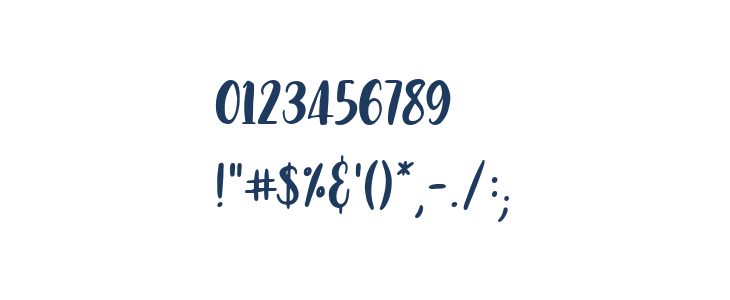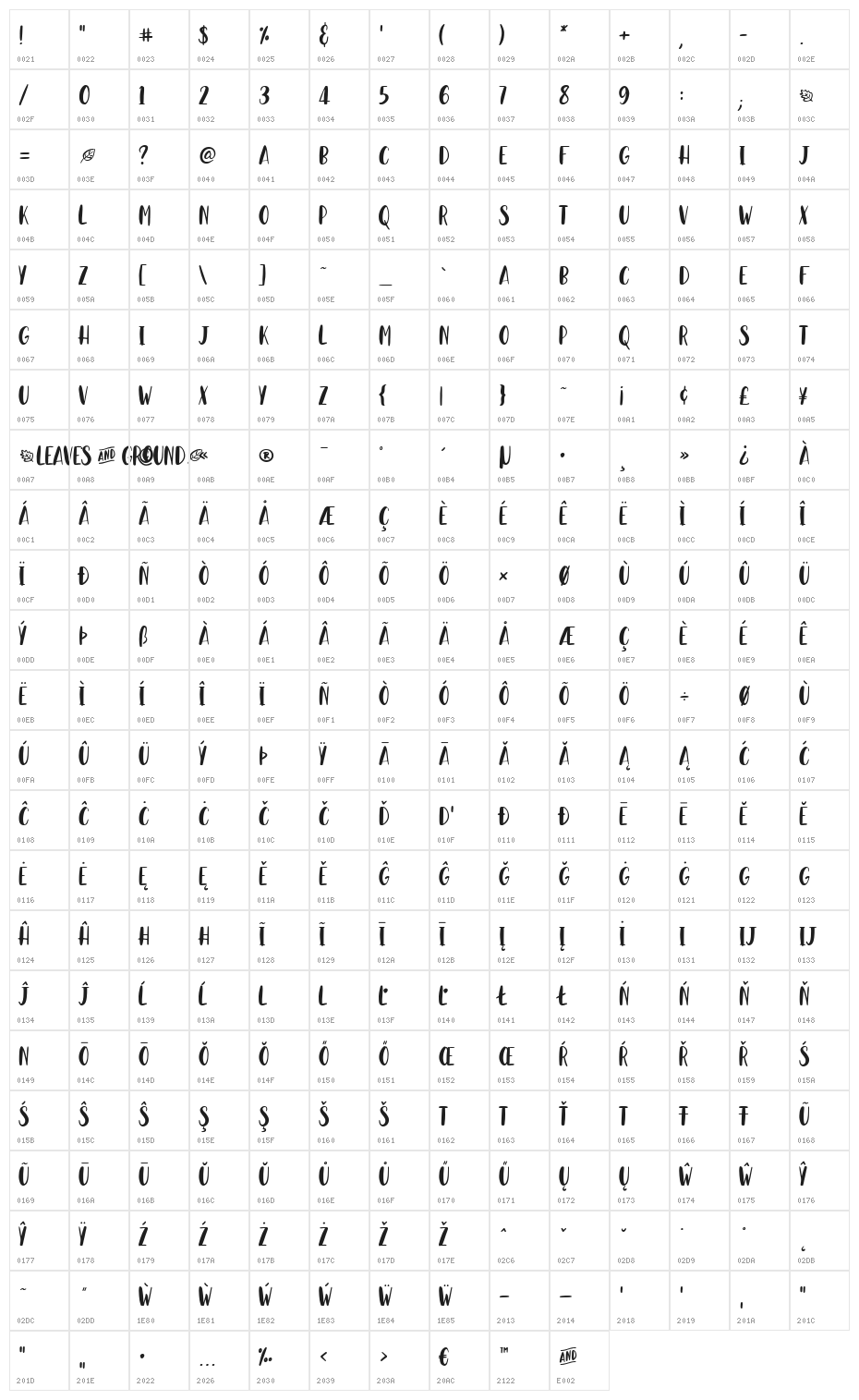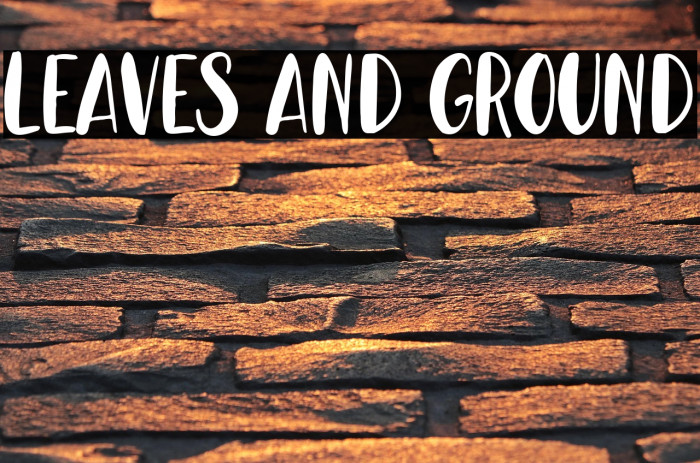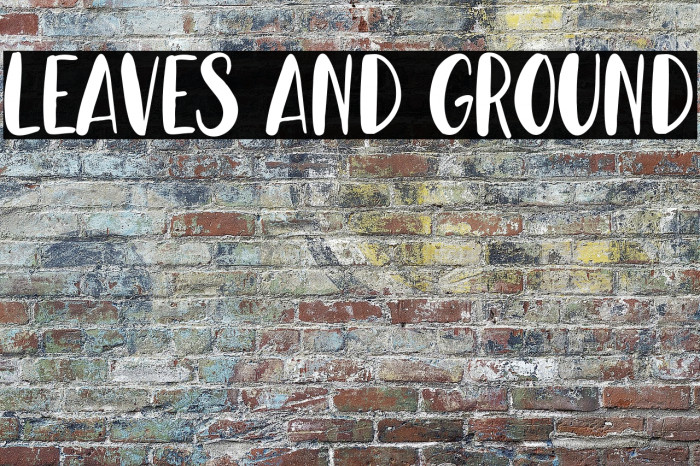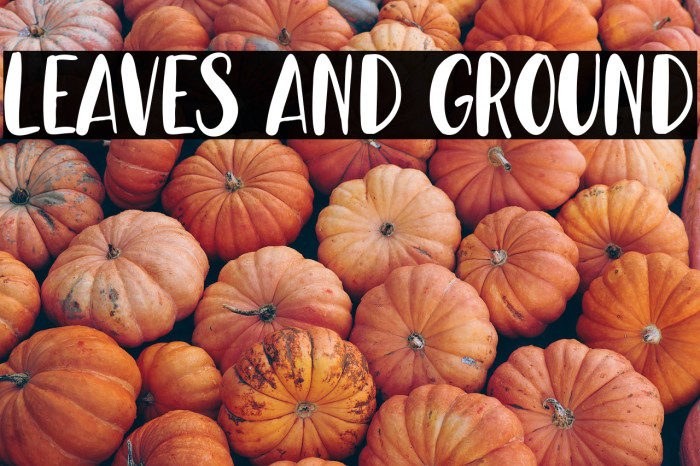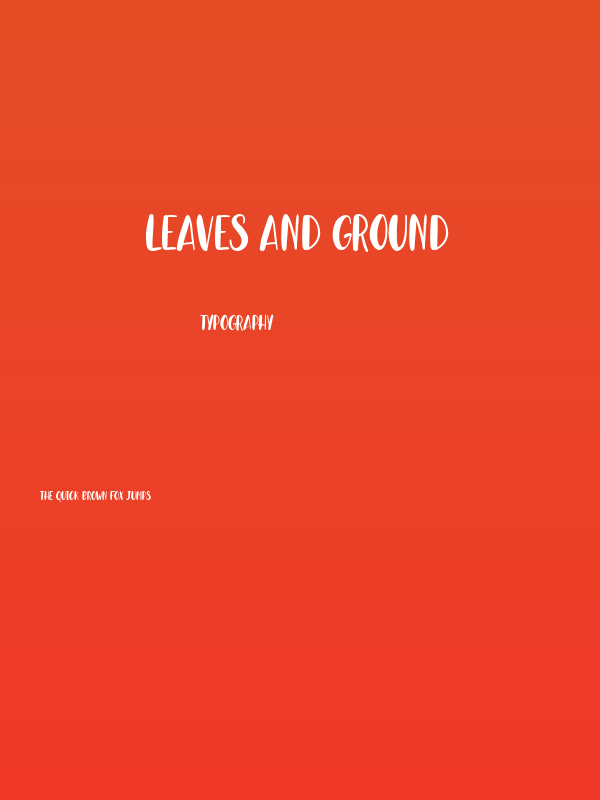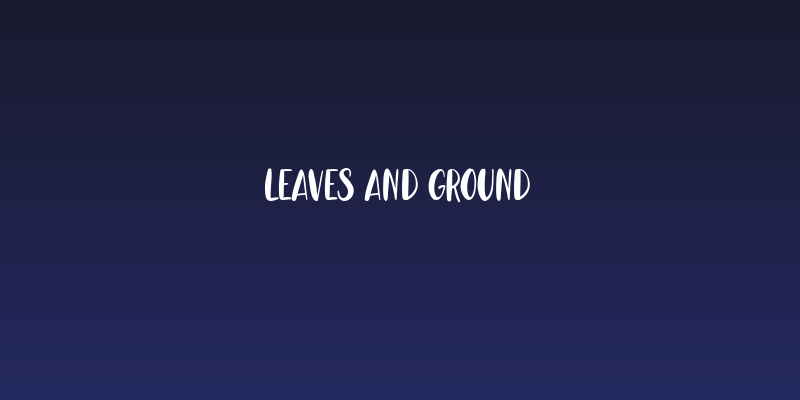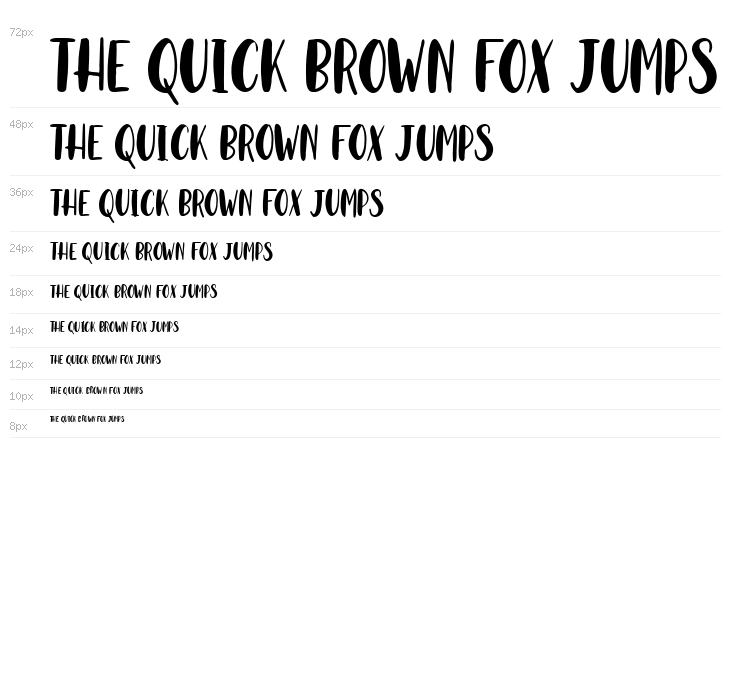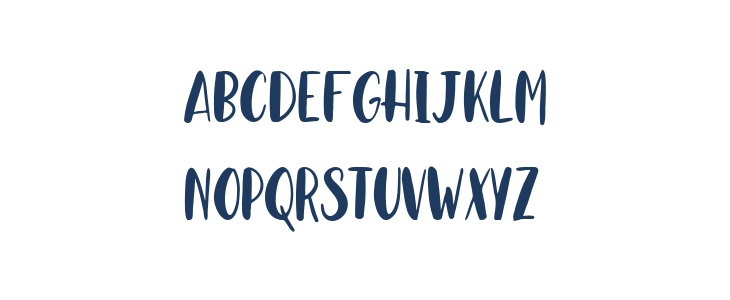
Leaves And Ground Font
Leaves And Ground Description
This font features a bold and playful handwritten style, characterized by its smooth curves and slightly irregular strokes that give it a lively and dynamic appearance. The letters are well-spaced, providing a clear and legible look while maintaining a casual and friendly vibe. The uppercase and lowercase letters are consistent in style, with a uniform thickness that adds to the font's cohesive design. The numerals and special characters match the overall aesthetic, making it versatile for various uses. Its energetic and informal style makes it ideal for projects that require a personal touch.
| Proposed Projects | Perfect for greeting cards, invitations, posters, and social media graphics. |